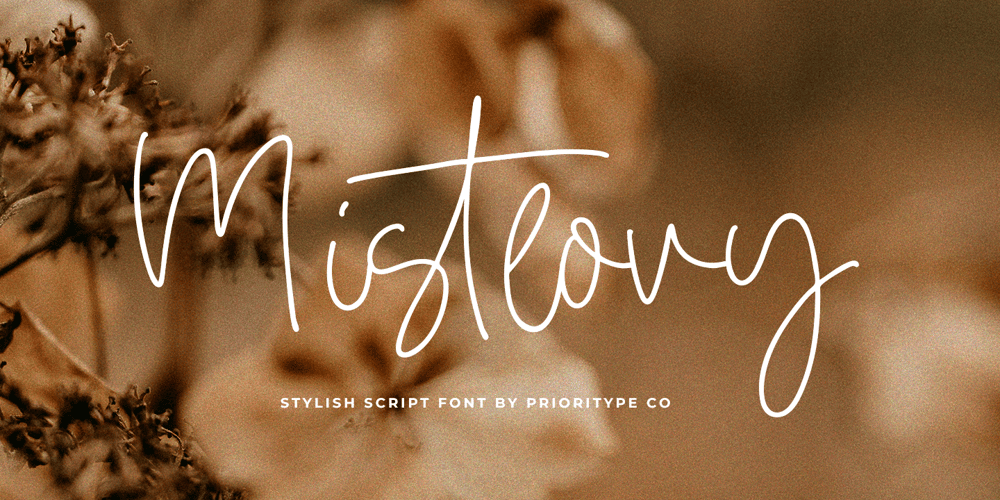
Mistlovy
Mistlovy font
Mistlovy Font Family was designed by Prio Nurokhim Aji and published by Prioritype. Mistlovy contains 1 styles and family package options. Mistlovy – Stylish Script FontIntroducing Mistlovy. A stylish handwritten script font that exudes natural elegance. Perfect for branding, logos, wedding invitations, and more, its fluidity adds charm to every project. Elevate your designs with the effortless beauty of “Mistlovy” and make a lasting impression with its unique appeal.Features: Uppercase, Lowercase, Numeral, Punctuation, Multilingual & Ligatures.Thanks!